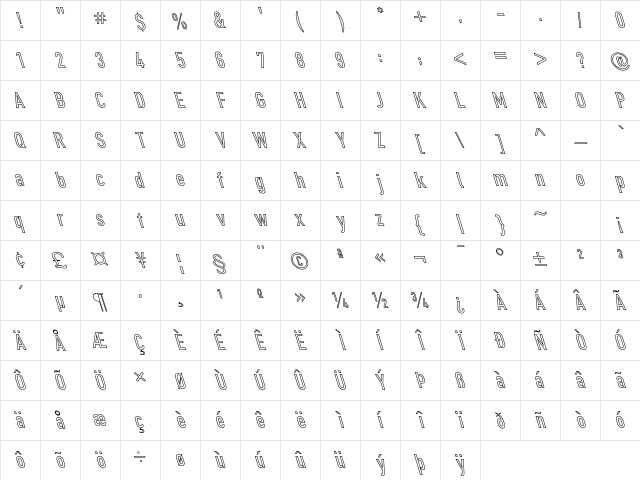
Din Kursivschrift LeftEngGho
Design Context for Din Kursivschrift Typeface
Din Kursivschrift offers clean, dependable letterforms without strong stylistic allegiance, making it a practical choice for designers who need flexibility. The slanted form adds forward momentum and visual energy.